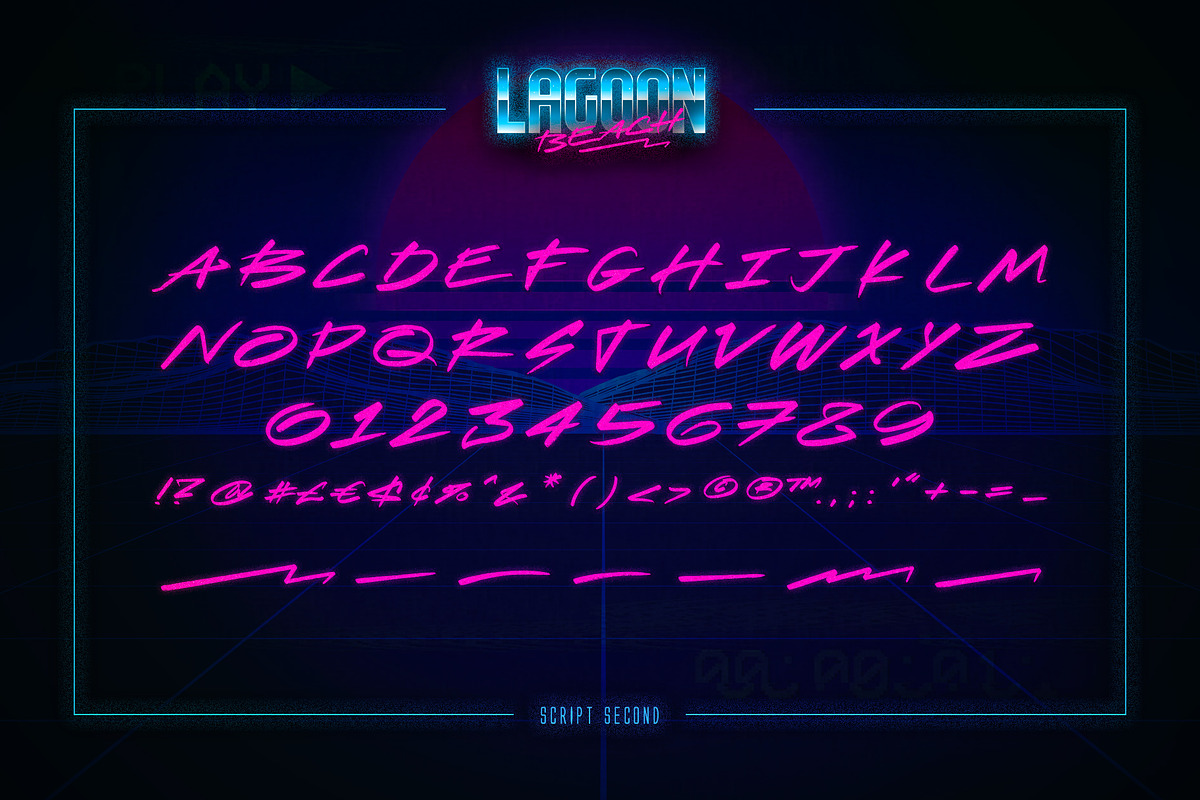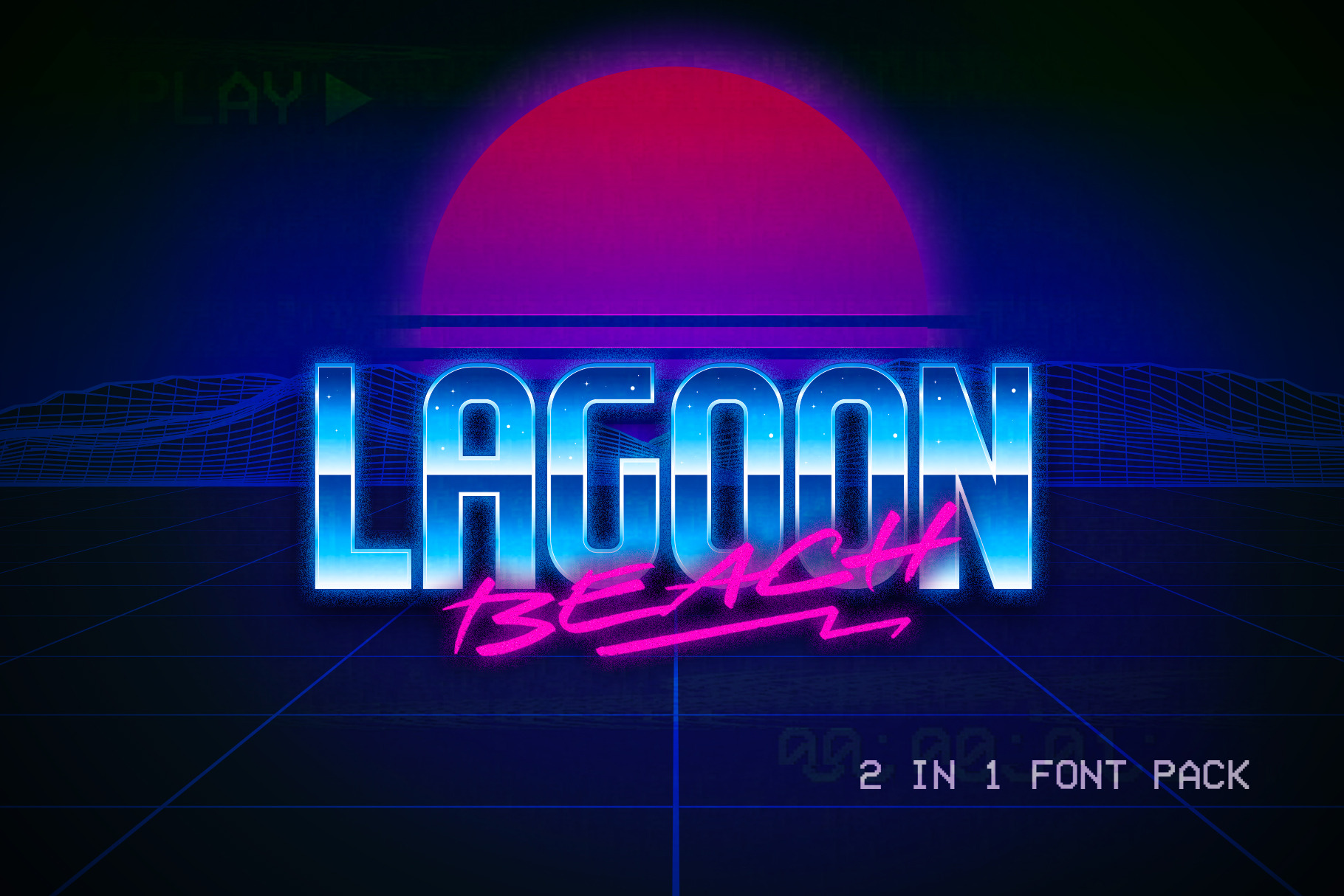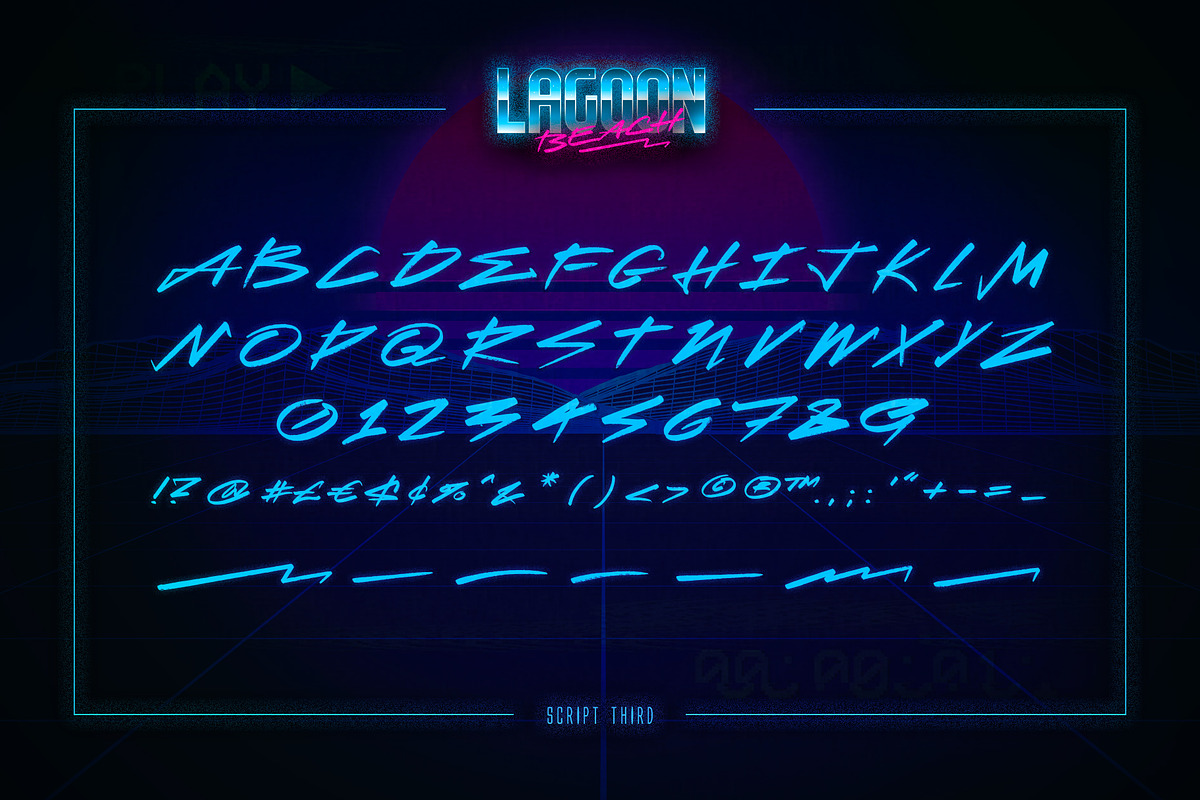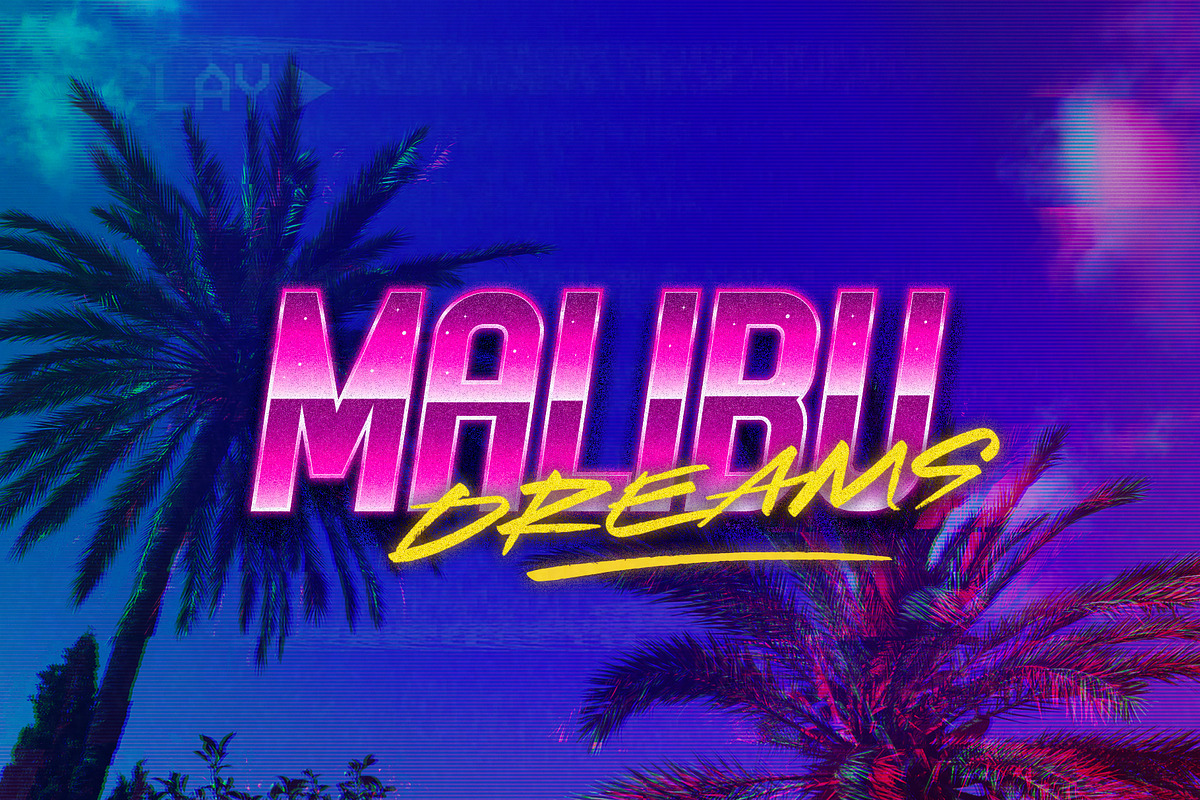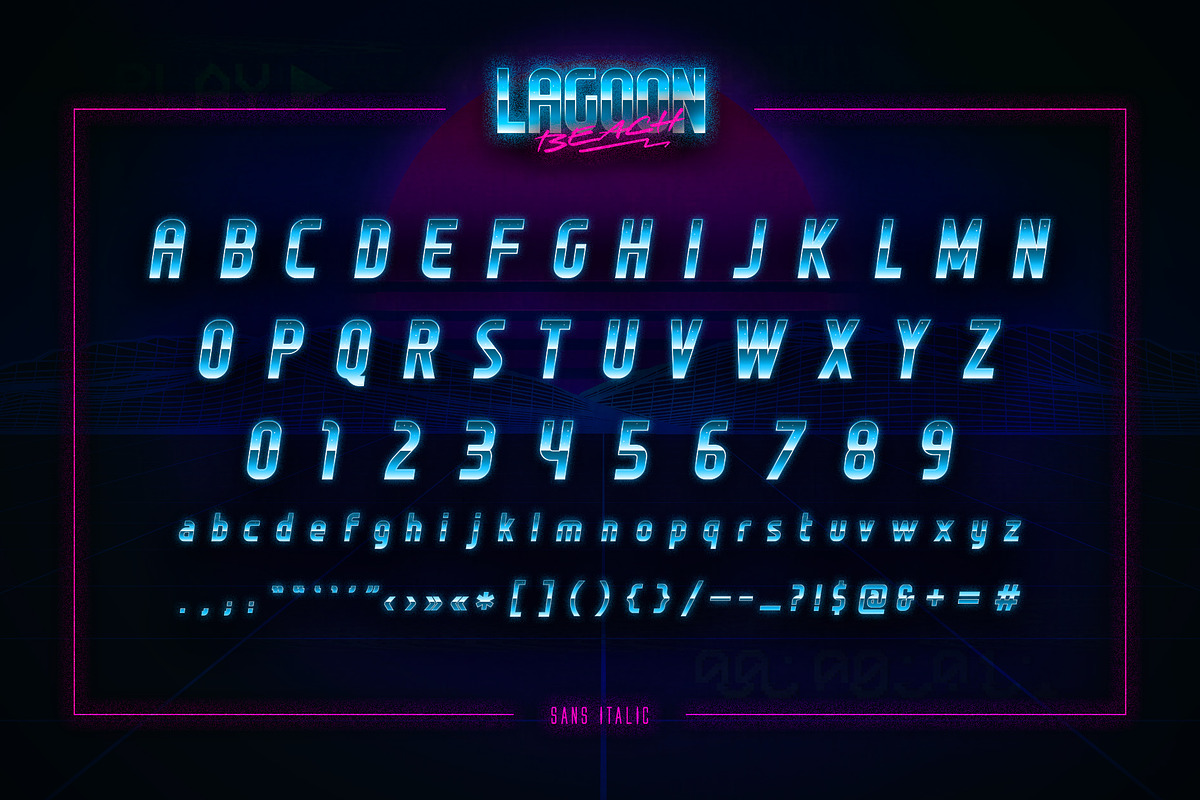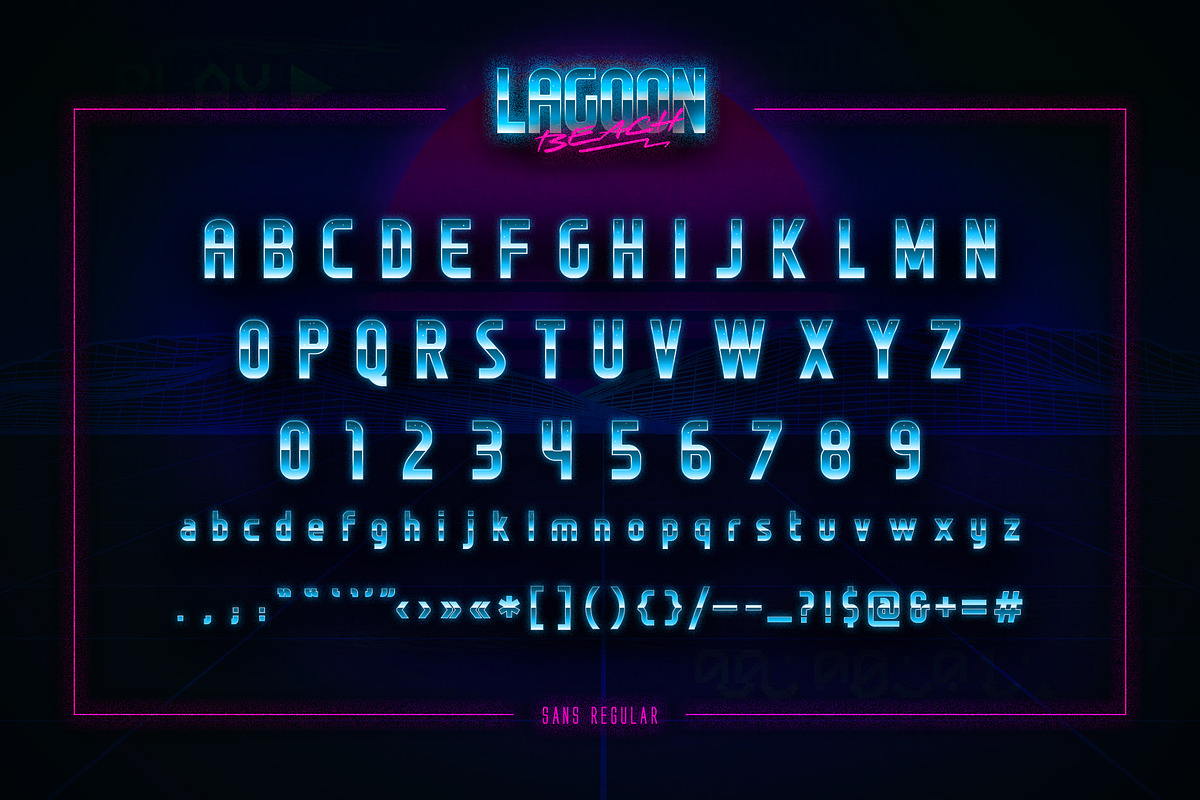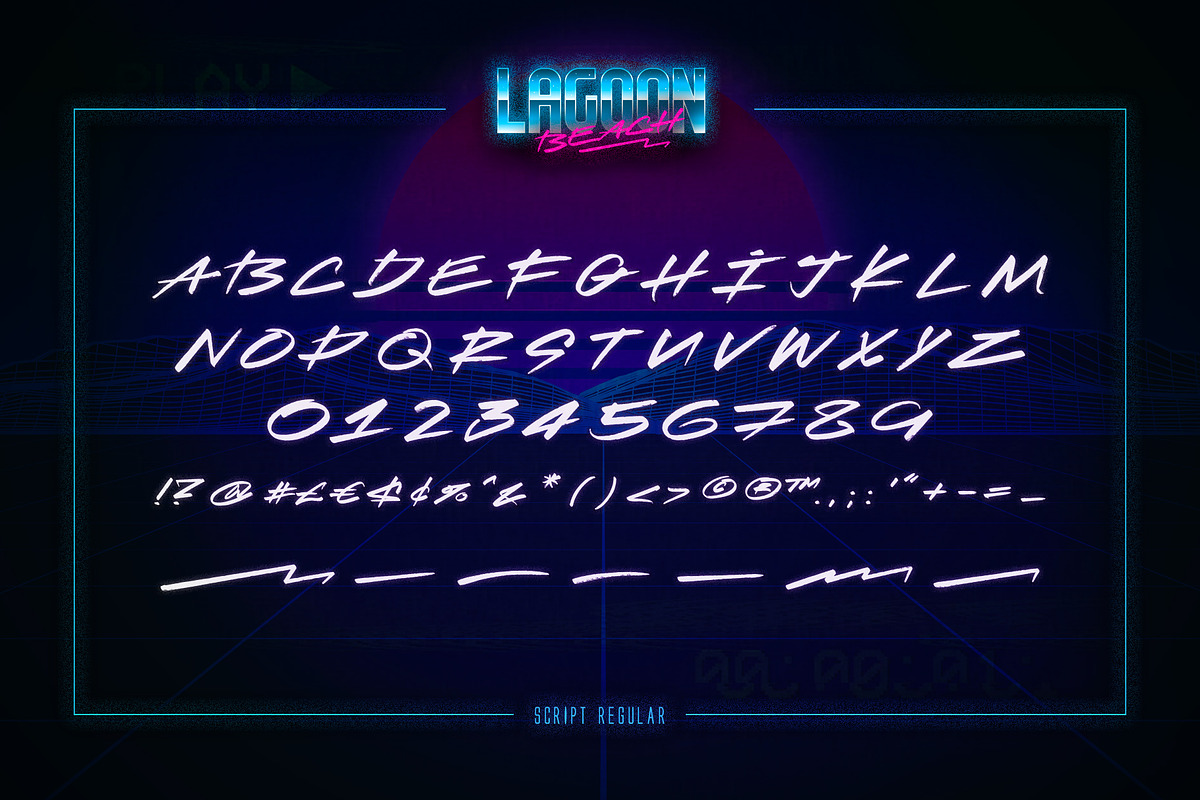
Lagoon Beach – 2 in 1 Font Pack
Remember the time when you had VHS tapes with your favorite movies on your shelf, and CDs and Laser Discs were on top of technology progress? Our nostalgic font 2 in 1 called Lagoon Beach (Sans + Script with 5 different styles in total) will help you create the atmosphere of those very 80s that we imagine in our heads with a warm memories. If you like vapor wave, retro wave, synth wave aesthetics this fonts are made for you.
Here's what you will find in this collection:
Lagoon Beach Sans Regular - 80’s styled condensed font with Uppercase, Lowercase, Symbols and Numbers.
Lagoon Beach Sans Italic - 80’s styled condensed italic font with Uppercase, Lowercase, Symbols and Numbers.
Hotliner Script Regular - A textured hand-made script font. Contains uppercase characters with full set of numerals and punctuation.
Hotliner Script Second - Another version of textured hand-made script font. Contains uppercase characters with full set of numerals and punctuation.
Hotliner Script Third - Third version of textured hand-made script font. Contains uppercase characters with full set of numerals and punctuation.
Extras:
- 5 Retrofuturistic Backgrounds in High Quality
- 7 Swashes for finishing your 80’s styled creations